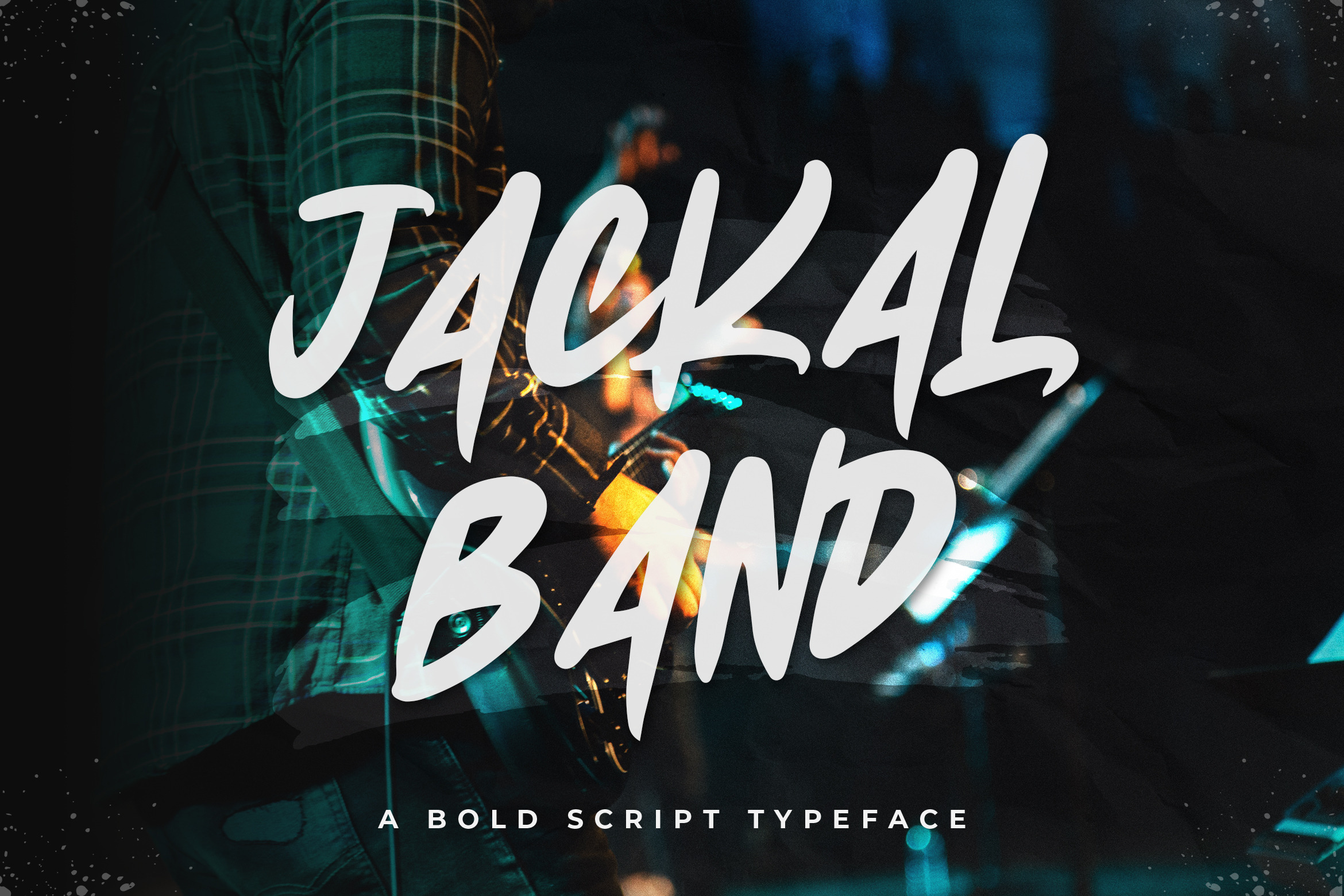
Jackal Band - A Bold Script Typeface
Jackal Band is a bold script handwritten font. It can be used for various purposes such as logos, headings, t-shirts, letterhead, signage, labels, news, posters, badges and so much more.